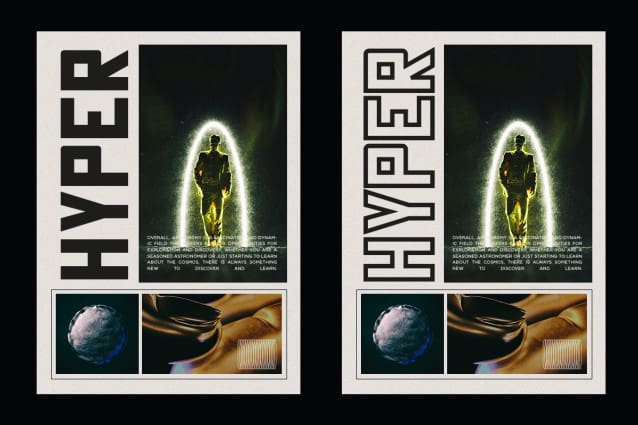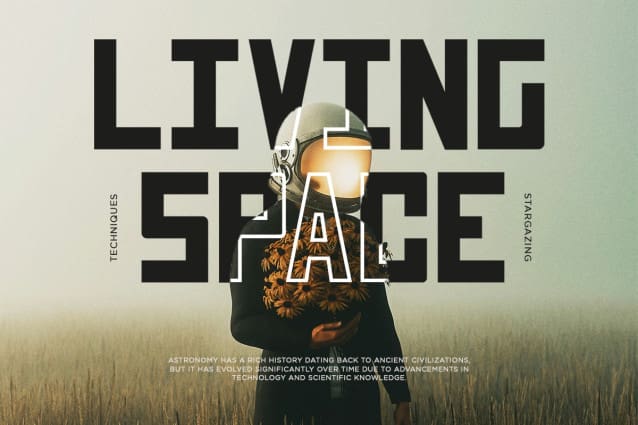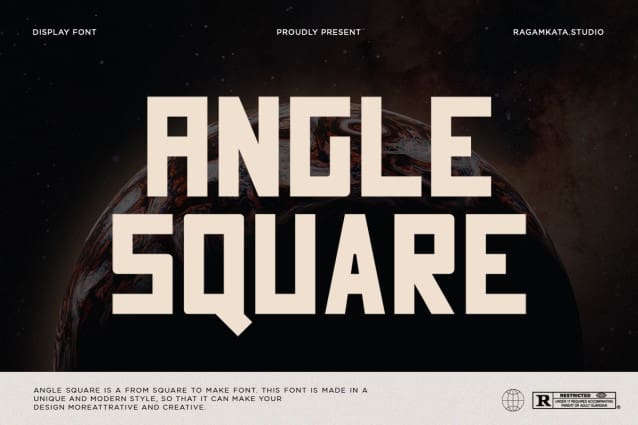
Angle Square Font
Angle Square Font is a from square to make font. This font is made in a unique and modern style, so that it can make your design moreattrative and creative.